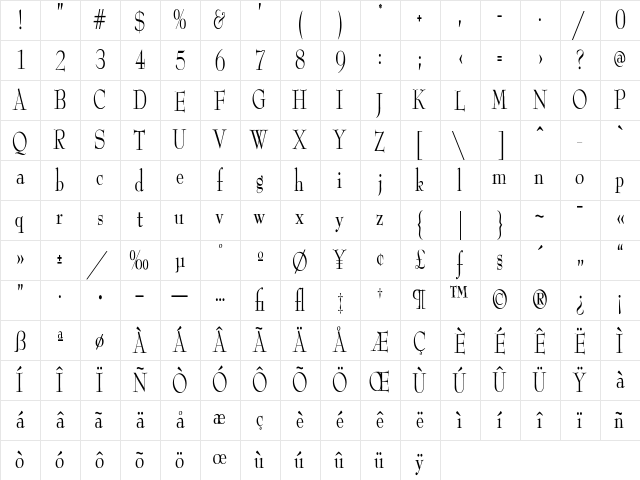
BlueChip Medium Free Font
BlueChip Medium
Design Context for BlueChip
BlueChip is a composed and adaptable typeface that performs quietly and consistently across a wide range of design contexts.
Pro Tip: Use BlueChip in both headline and body roles to test its range before committing to a single application.